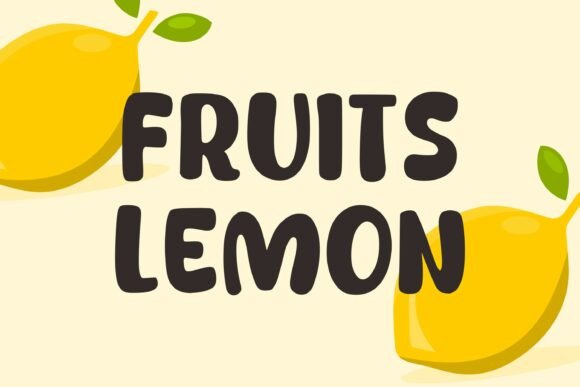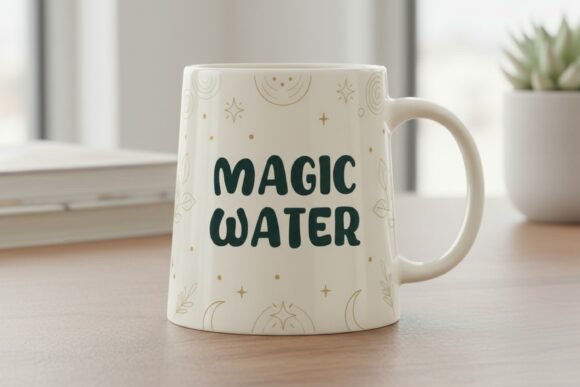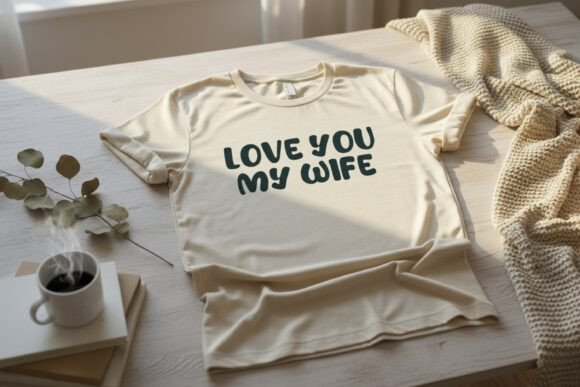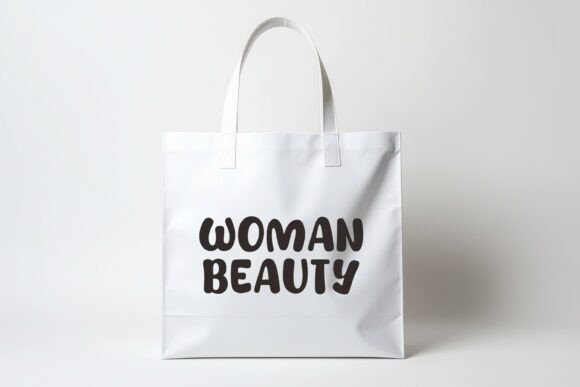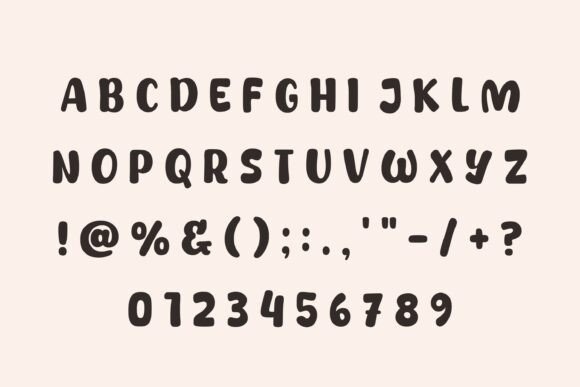
Adding a Touch of Whimsy to Your Designs
Do you remember the thrill of unwrapping a colorful candy or receiving a birthday invitation with a playful design that made your heart skip a beat? For many of us, those moments evoke a sense of joy and nostalgia that we strive to recreate in our creative projects. As designers, we’re always on the lookout for the perfect font to add that extra oomph to our designs.
Enter the Fresh Bubble Font, a playful and adorable display font designed to bring joy and personality to your creative projects. With its bold, rounded bubble shapes and smooth curves, this font creates a friendly and eye-catching look that’s perfect for snack packaging, children’s toys, and colorful social media graphics. Whether you’re designing for a candy brand or a youth-focused digital app, the Fresh Bubble Font is a valuable addition to any designer’s toolkit.
Fresh Bubble Font Key Features
- Character Set: This font includes a wide range of characters, including uppercase and lowercase letters, numbers, punctuation marks, and special characters, making it suitable for various design applications.
- Unique Characteristics: The Fresh Bubble Font features a unique, playful, and modern design with rounded edges and soft curves, making it perfect for creating eye-catching and engaging designs, such as logos, branding materials, and advertisements.
- Font Weight and Style: The Fresh Bubble Font comes in multiple weights and styles, including regular, bold, italic, and bold italic, allowing designers to choose the perfect version to match their design’s tone and style.
Review of Fresh Bubble Font
Overall, I was quite excited to try out the Fresh Bubble Font, and it did not disappoint. ✨ The first thing that caught my attention was its unique, playful design that’s perfect for creating a fun and youthful atmosphere. The font is great for titles, headings, and even body text when you want to add a bit of whimsy.
One of the things that works well is the font’s versatility. ✨ You can use it for a wide range of projects, from social media graphics to advertisements and even merchandise. The font is also highly legible, making it easy to read even at smaller font sizes.
- ⚠️ The font may not be suitable for formal or professional projects, as its playful design may come across as unprofessional.
- ⚠️ The font lacks a bold or italic version, which may limit its usage in certain contexts.
- ⚠️ Some characters may not be available in the font, which could cause issues with certain words or phrases.
Overall, I’m impressed with the Fresh Bubble Font, and I think it’s a great addition to any designer’s toolkit. While it may have some limitations, its unique design and versatility make it a great choice for the right projects.
Practical Application Guide for Fresh Bubble Font
The Fresh Bubble Font is ideal for:
- Creating playful and fun designs for social media and advertising.
- Adding a whimsical touch to children’s book illustrations and designs.
Q: What is the recommended font size for using the Fresh Bubble Font?
The recommended font size for using the Fresh Bubble Font is between 12pt and 24pt. This font size range provides the best balance between readability and aesthetics. However, feel free to experiment with different font sizes to achieve the desired visual effect in your design.